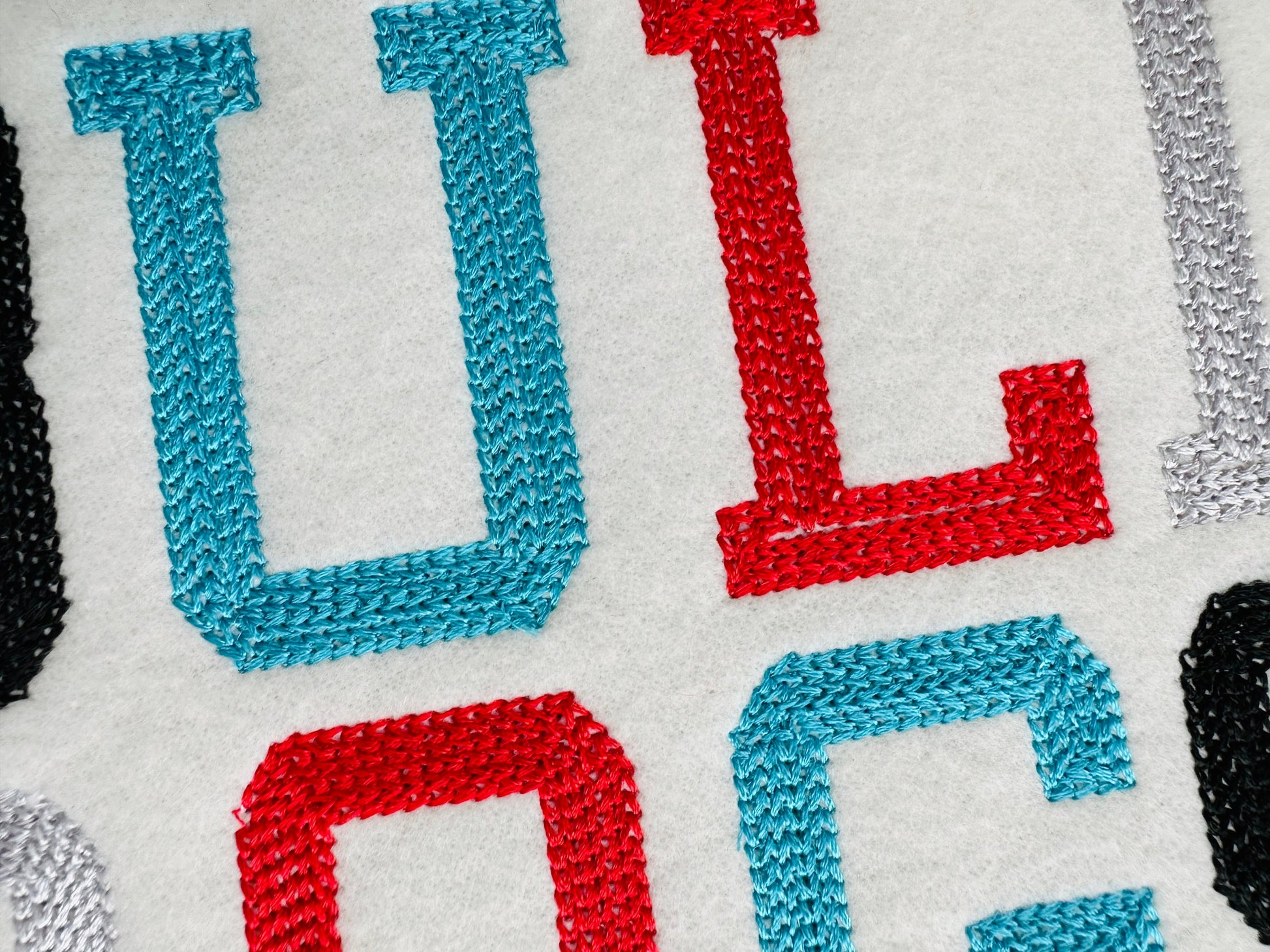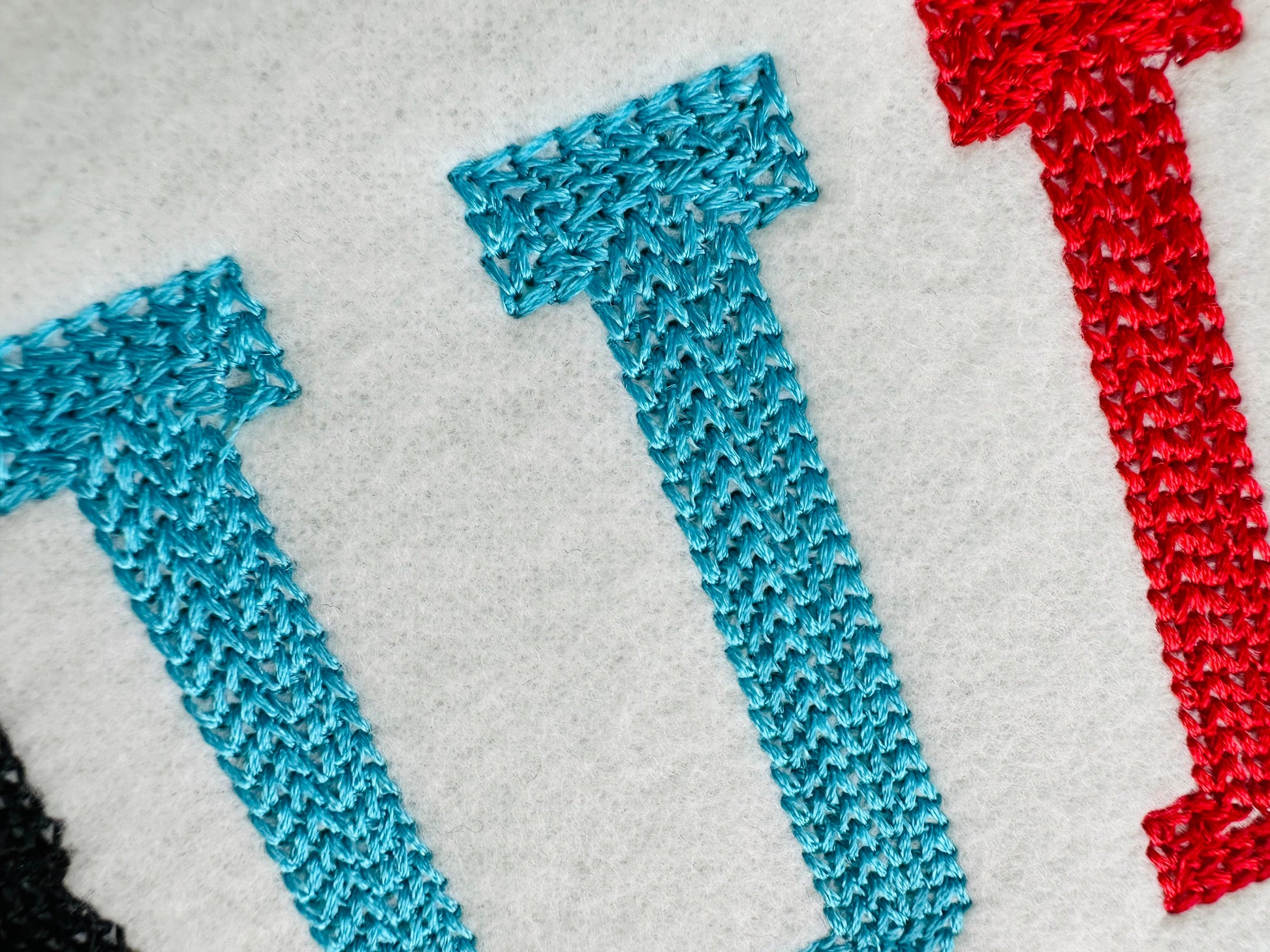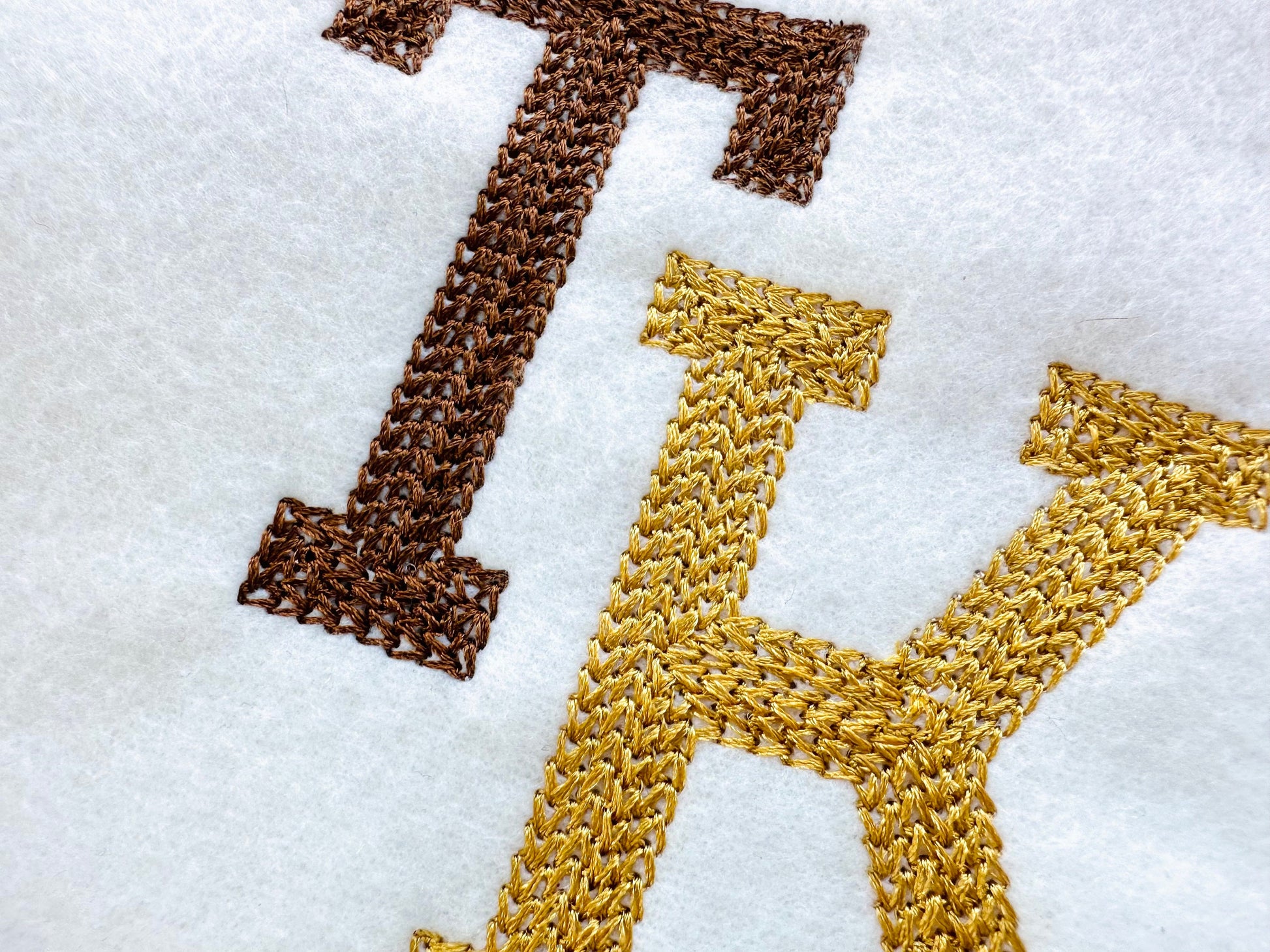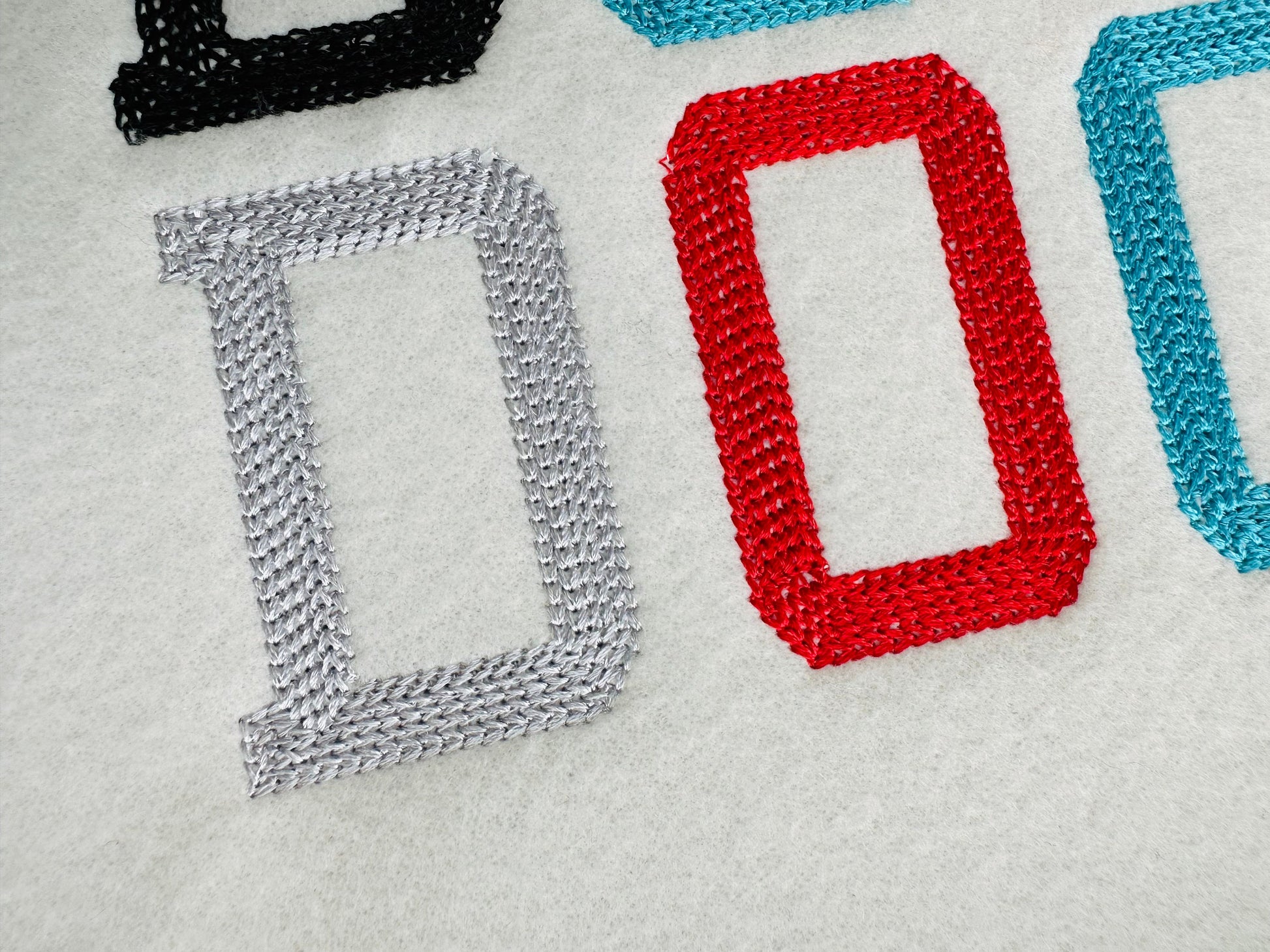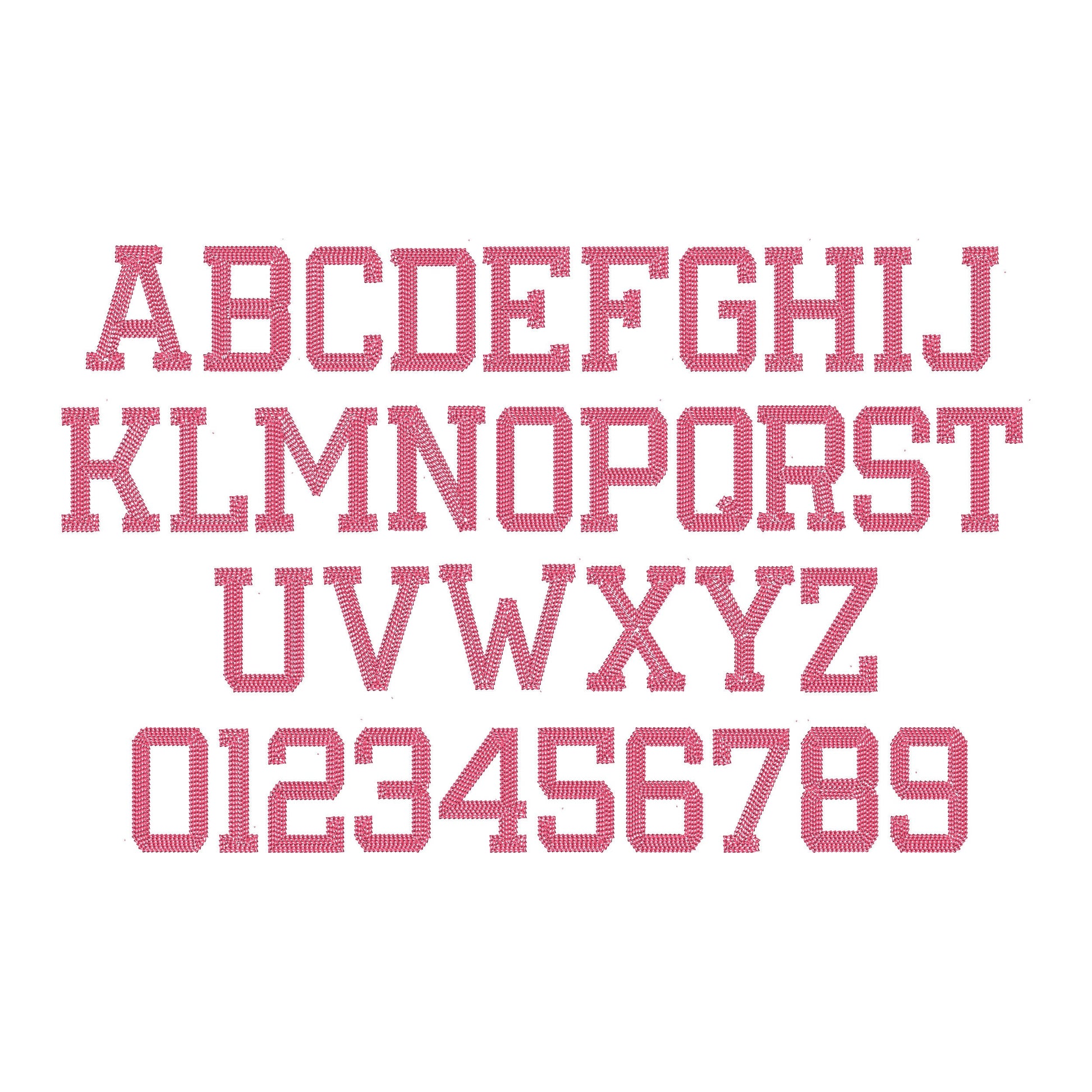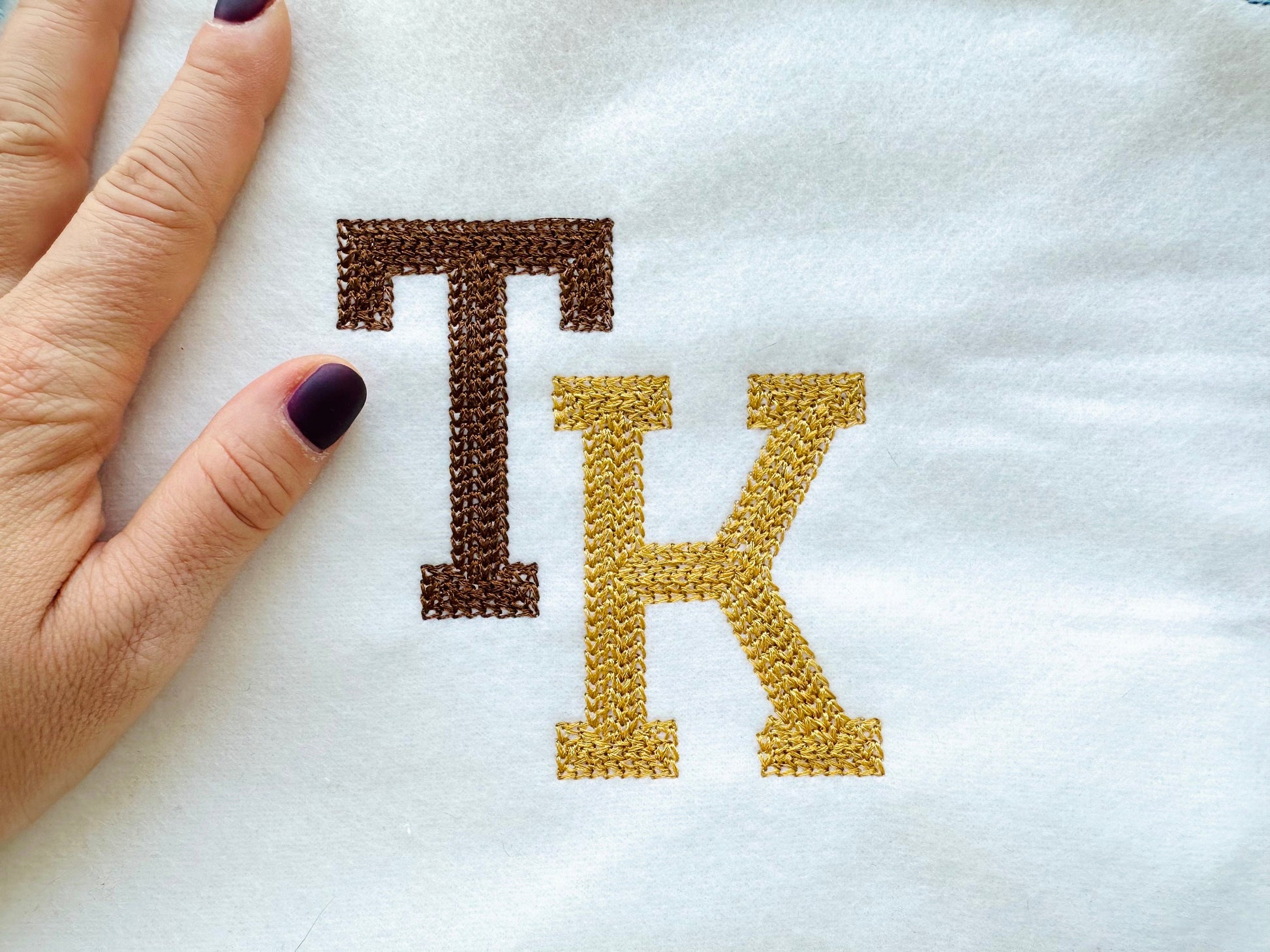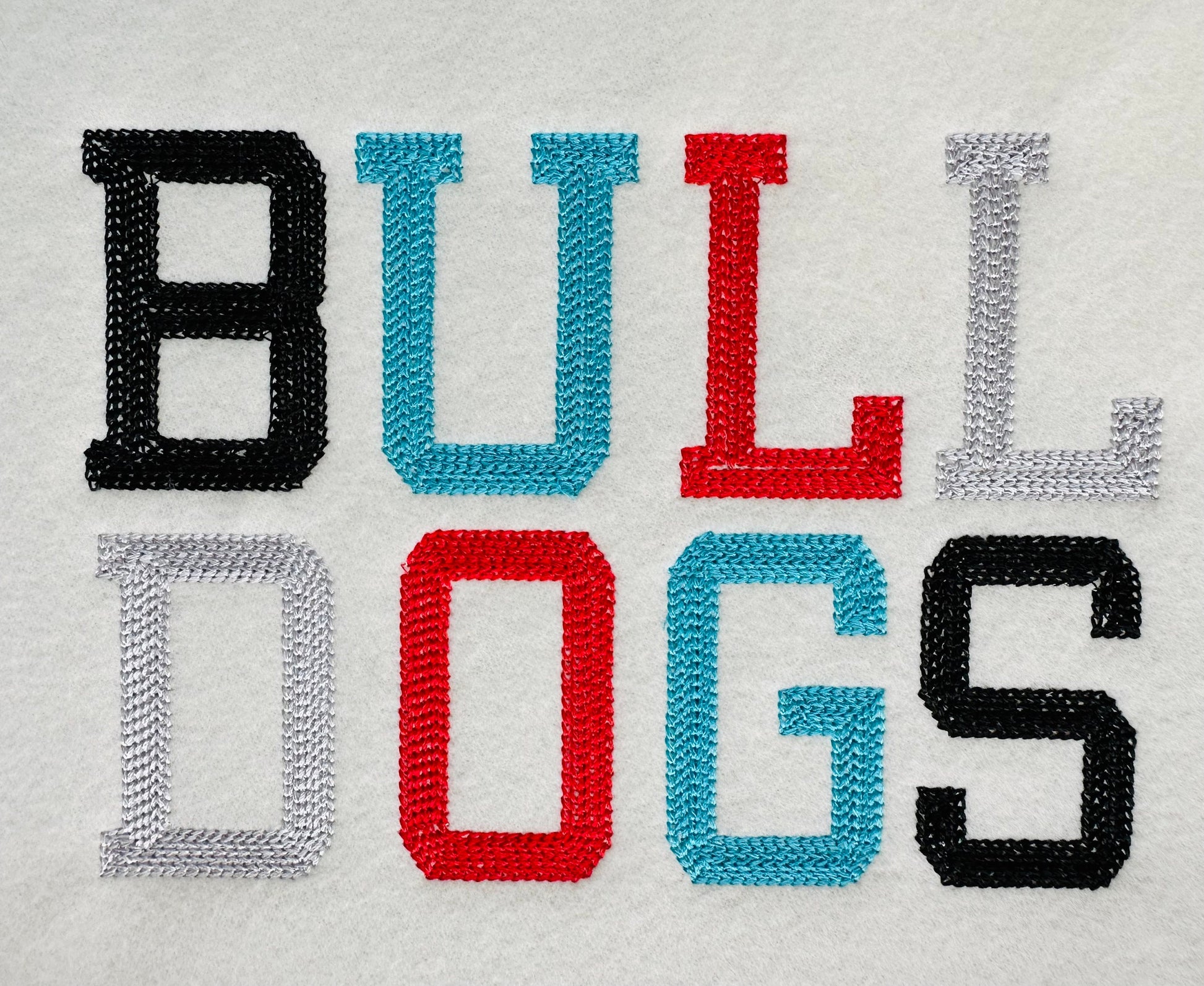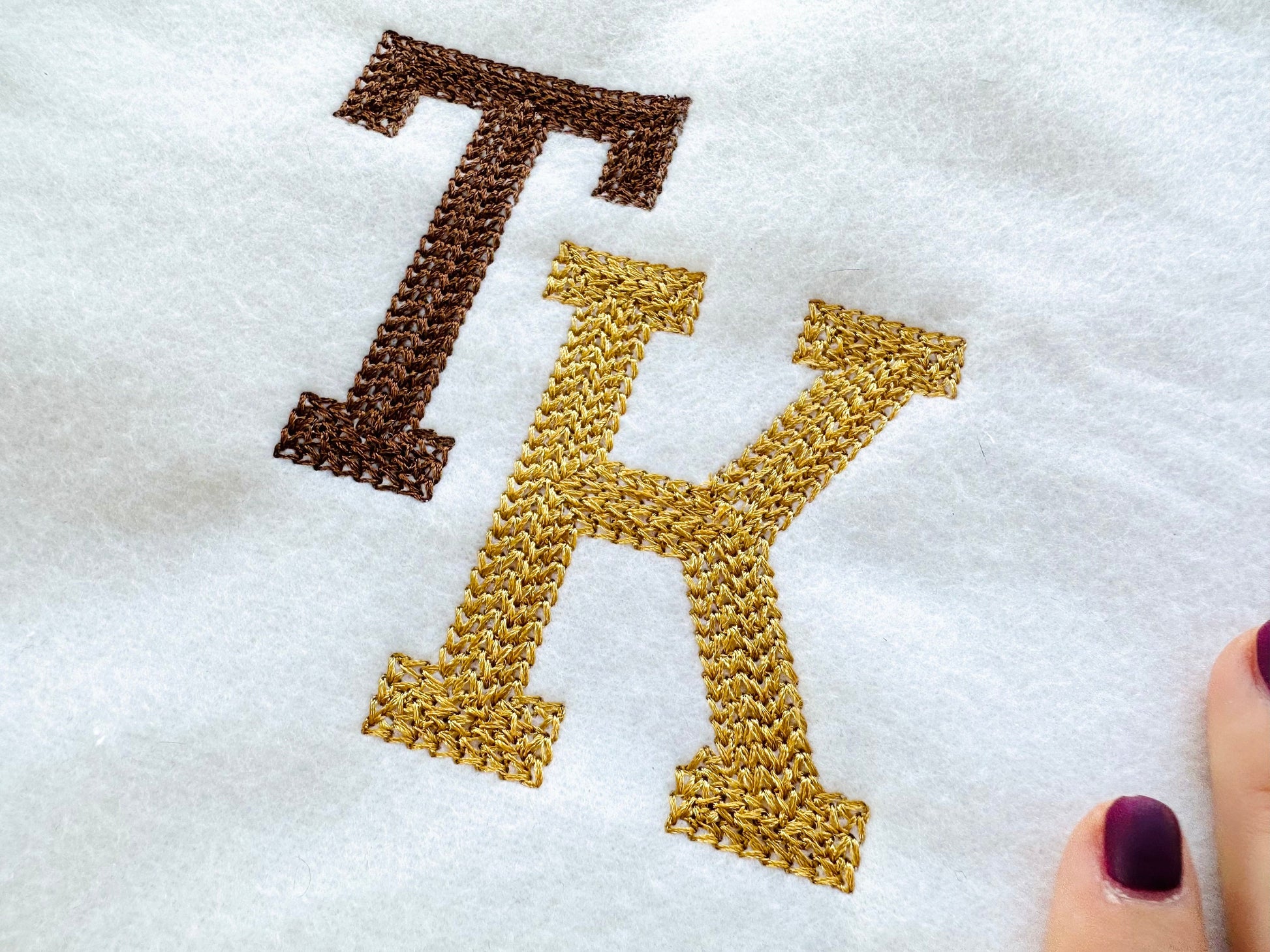
Chain Hand Stitch Effect Varsity Collegiate Font
Included: Uppercase A-Z, Numbers 0-9
A varsity collegiate font with a chain stitch texture that looks hand embroidered, for team names and numbers on sweaters, jackets and shirts.
Uppercase A to Z and numbers 0 to 9 in four sizes: 3, 3.5, 4 and 4.5 inches.
• Chain stitch varsity font
• Uppercase A-Z and numbers 0-9
• 4 sizes, 3 to 4.5 in